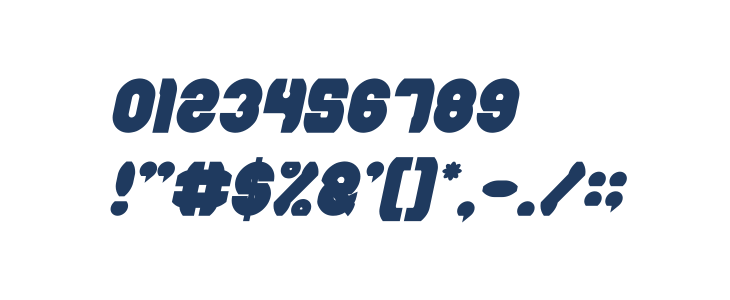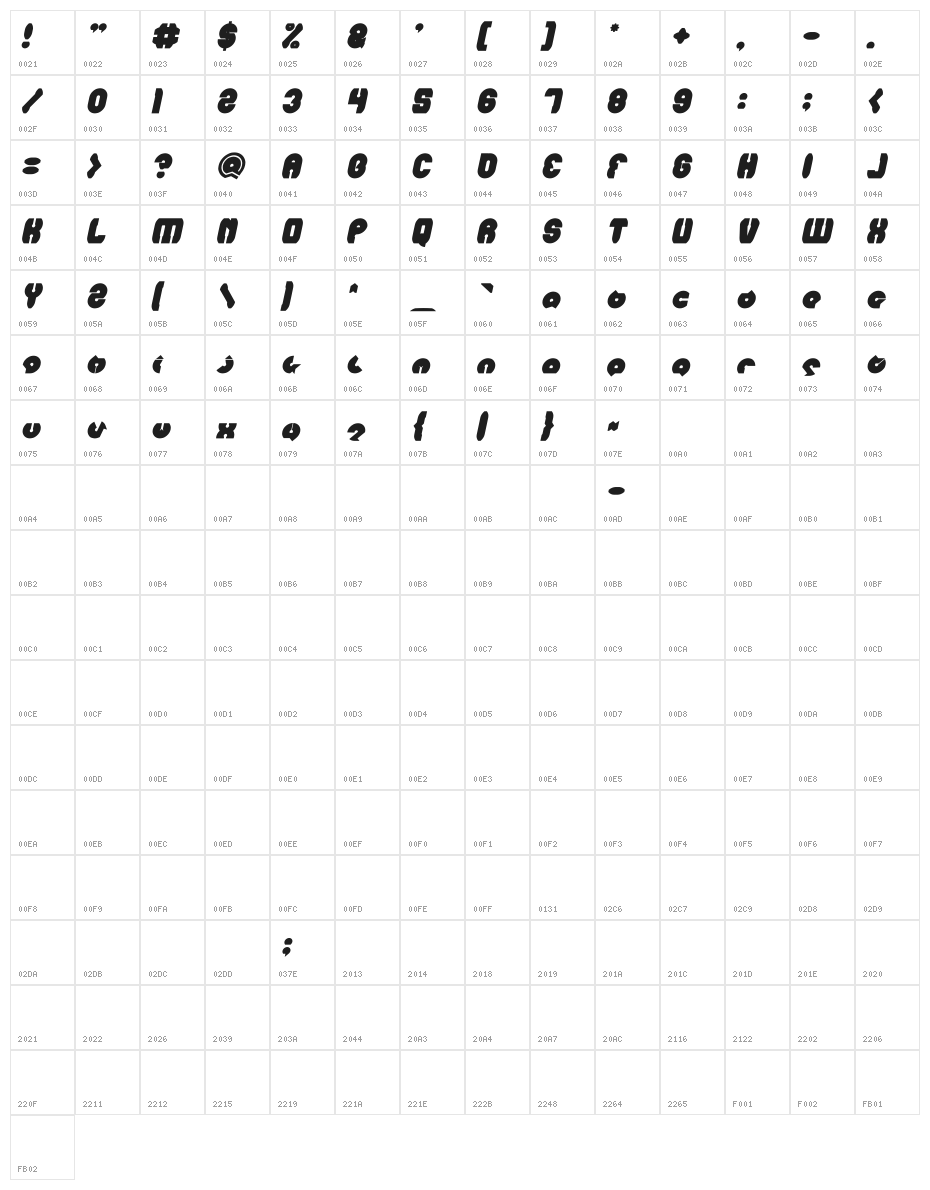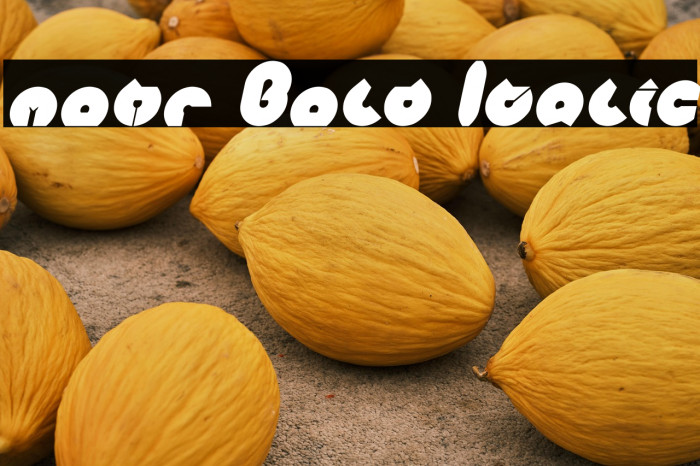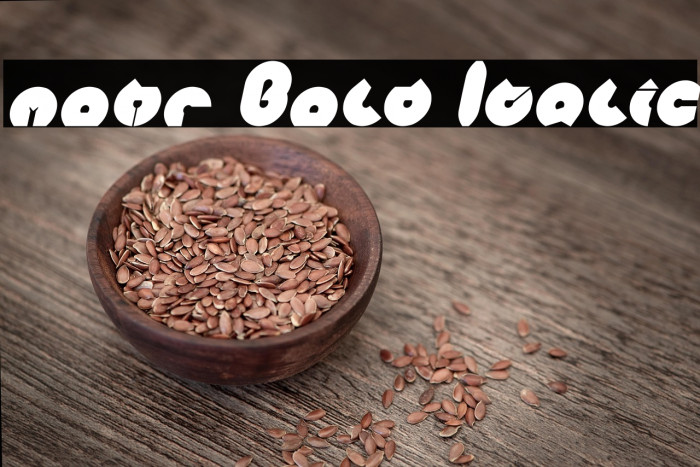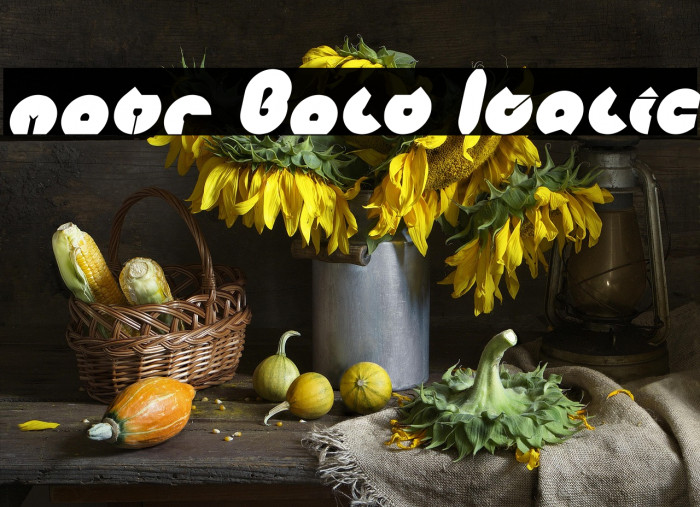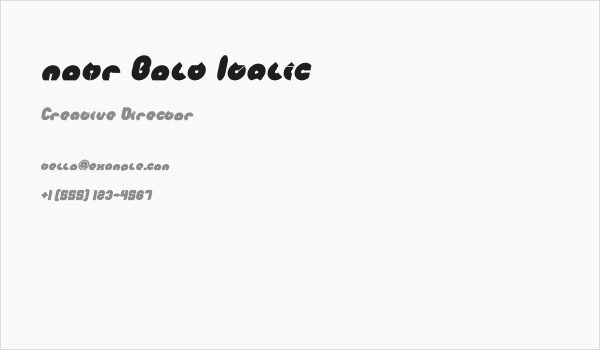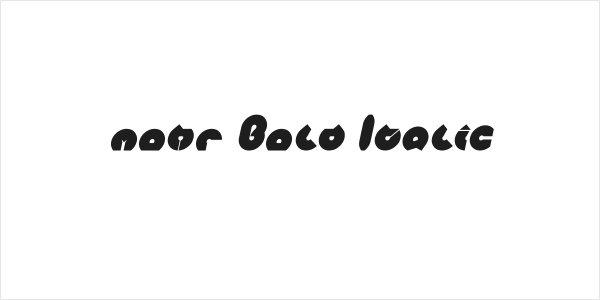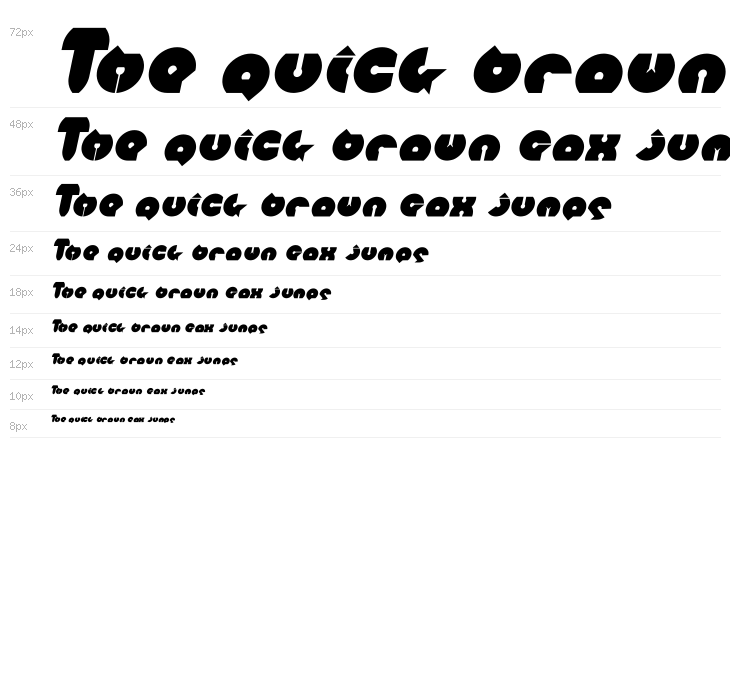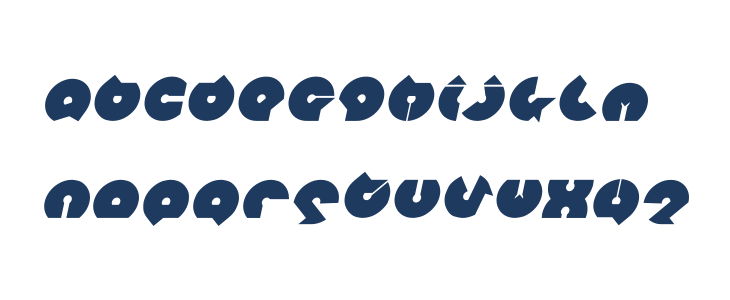
mohr Bold Italic Font
mohr Bold Italic Description
This font features a bold and italicized style with a distinctively modern and decorative flair. The characters are heavily weighted, creating a strong visual impact. The strokes are thick and consistent, with a slight slant that adds a dynamic feel. The design incorporates unique cutouts and geometric shapes within the letters, enhancing its decorative appeal. The numbers and special characters follow the same bold and stylized pattern, ensuring uniformity across all elements. This font is ideal for projects that require a striking and contemporary look.
| Proposed Projects | Ideal for branding, poster design, headlines, and any project needing a bold, modern statement. |